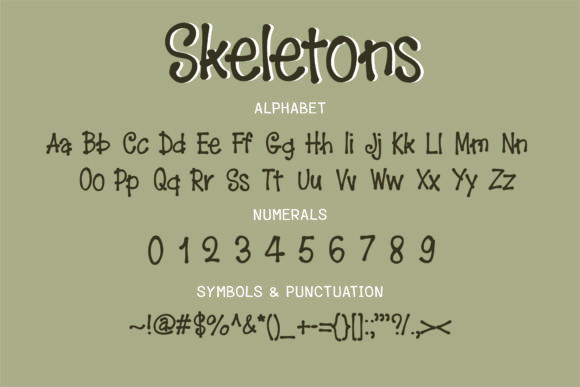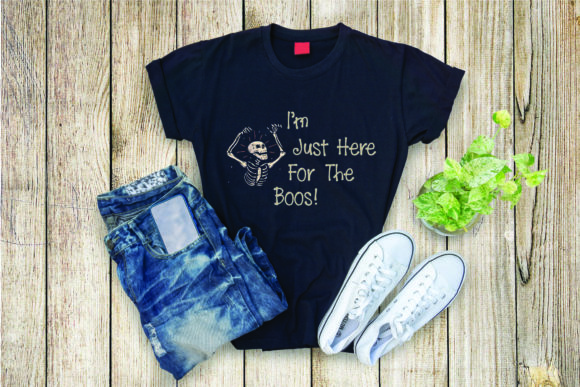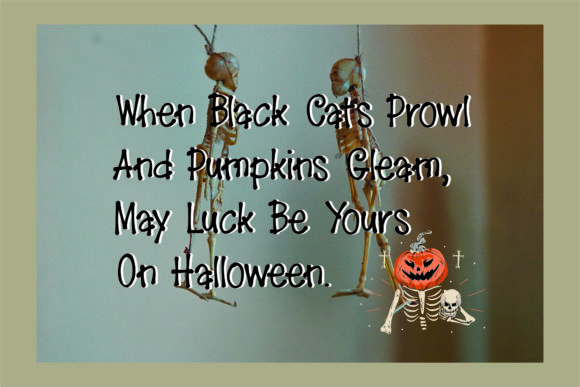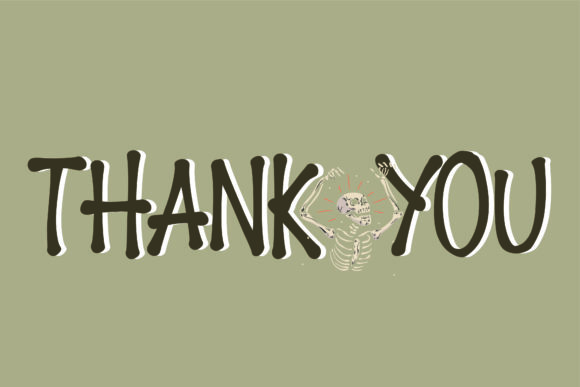
Introduction to Skeletons Font
Do you remember the excitement of rummaging through your grandparents’ attic, uncovering old trunks and dusty boxes filled with forgotten treasures? For many creatives, this experience sparks a sense of imagination and inspires new design projects. It’s moments like these that remind us of the beauty in the simple and quirky, which is exactly what the Skeletons Font embodies.
This charming, handwritten font is a design resource that will add a touch of whimsy to your creative projects. With its high-quality, cartoon-like aesthetic, Skeletons Font is perfect for crafting unique letterheads, titles, and stationery that will stand out from the crowd.
Whether you’re working on a personal project or designing for a client, the Skeletons Font offers a valuable asset that can elevate your design to the next level. And the best part? This versatile font can be easily paired with a transparent background to create a stunning visual effect, making it an ideal choice for designers seeking a high-quality, creative design solution.
Skeletons Font
- Unique, hand-drawn design featuring a skeleton theme
Honest Review: Skeletons Font
I recently had the chance to work with the Skeletons Font, and I must say it’s a unique and interesting design resource. The font’s transparent background and quirky design elements made it a great fit for my latest creative project.
- ✨ High quality: The Skeletons Font is incredibly detailed and well-designed, making it perfect for projects that require a high level of visual sophistication.
- ✨ Unique design: The font’s skeletal design elements add a touch of creativity to any project, making it stand out from more traditional fonts.
However, I did encounter a few limitations while working with the Skeletons Font. For example:
- ⚠️ Limited character set: The font’s character set is somewhat limited, which can make it difficult to use for longer pieces of text.
- ⚠️ May not be suitable for all projects: The font’s quirky design elements may not be suitable for more formal or conservative projects.
Overall, I was impressed with the Skeletons Font and would definitely consider using it again in the future. With a little creativity and planning, it can be a great addition to any design project.
Skeletons Font
The Skeletons Font is a high-quality design resource ideal for creative projects requiring a unique touch. With a transparent background, this font is perfect for designers looking to add a spooky or whimsical element to their work.
Tips for Getting the Most Out of Skeletons Font
For the best results, use the Skeletons Font in combination with other design elements, such as images and graphics. Experiment with different font sizes, colors, and styles to create a unique look. You can also use the font to create a sense of hierarchy in your design by applying it to headings and titles.
The Skeletons Font is perfect for a variety of creative projects, including Halloween-themed designs, spooky decorations, and whimsical illustrations. It’s also great for designers looking to add a unique touch to their work, such as in fashion design, graphic design, or advertising.